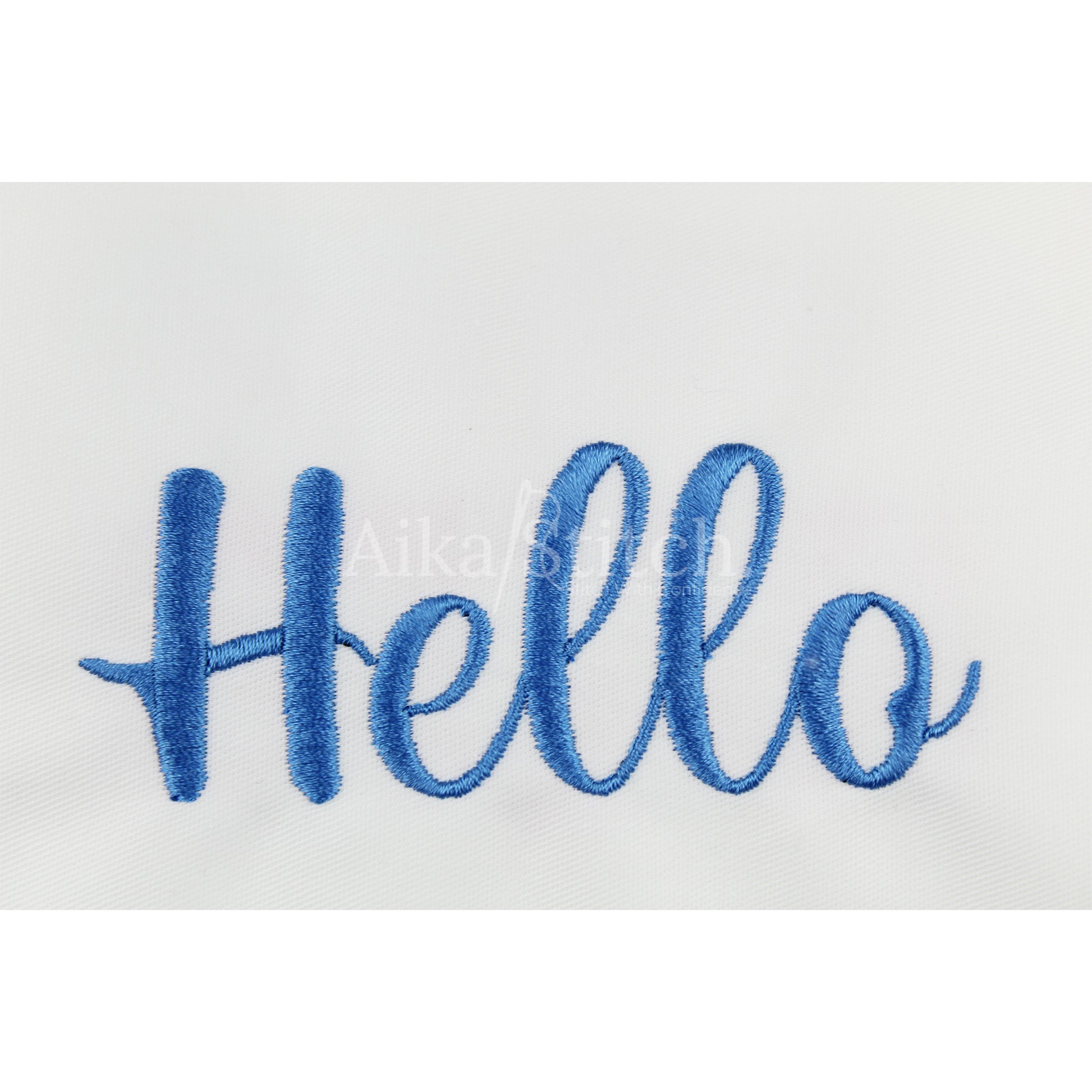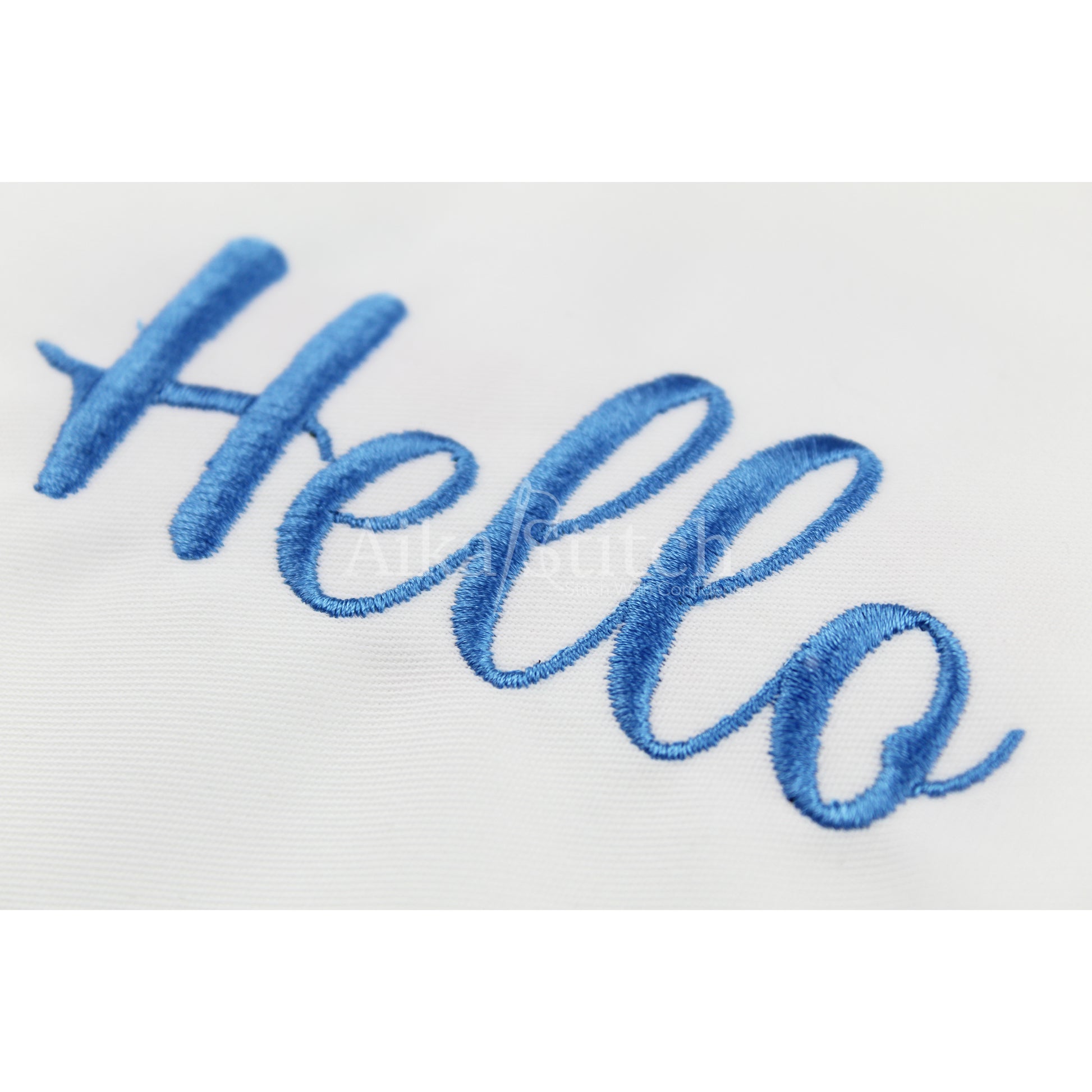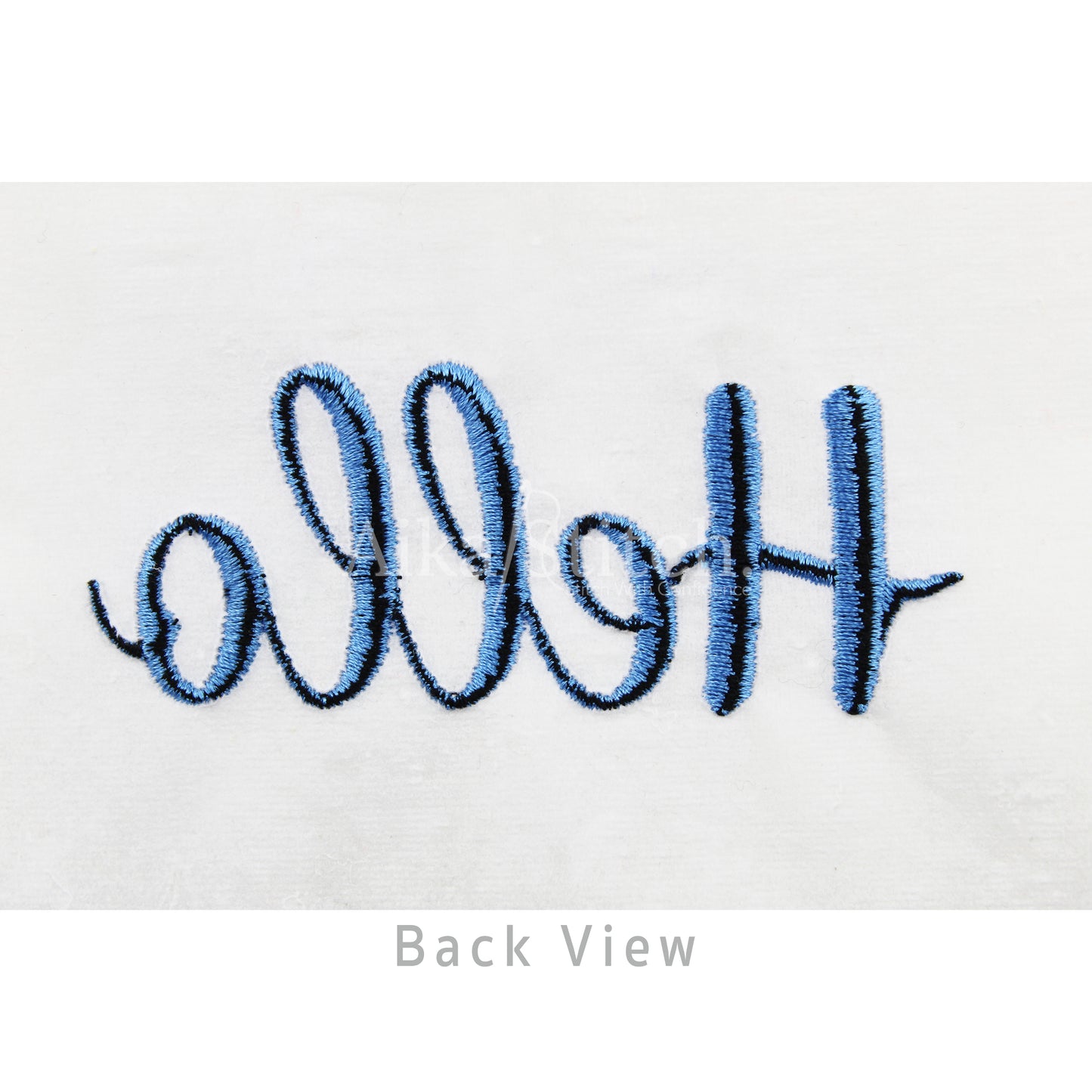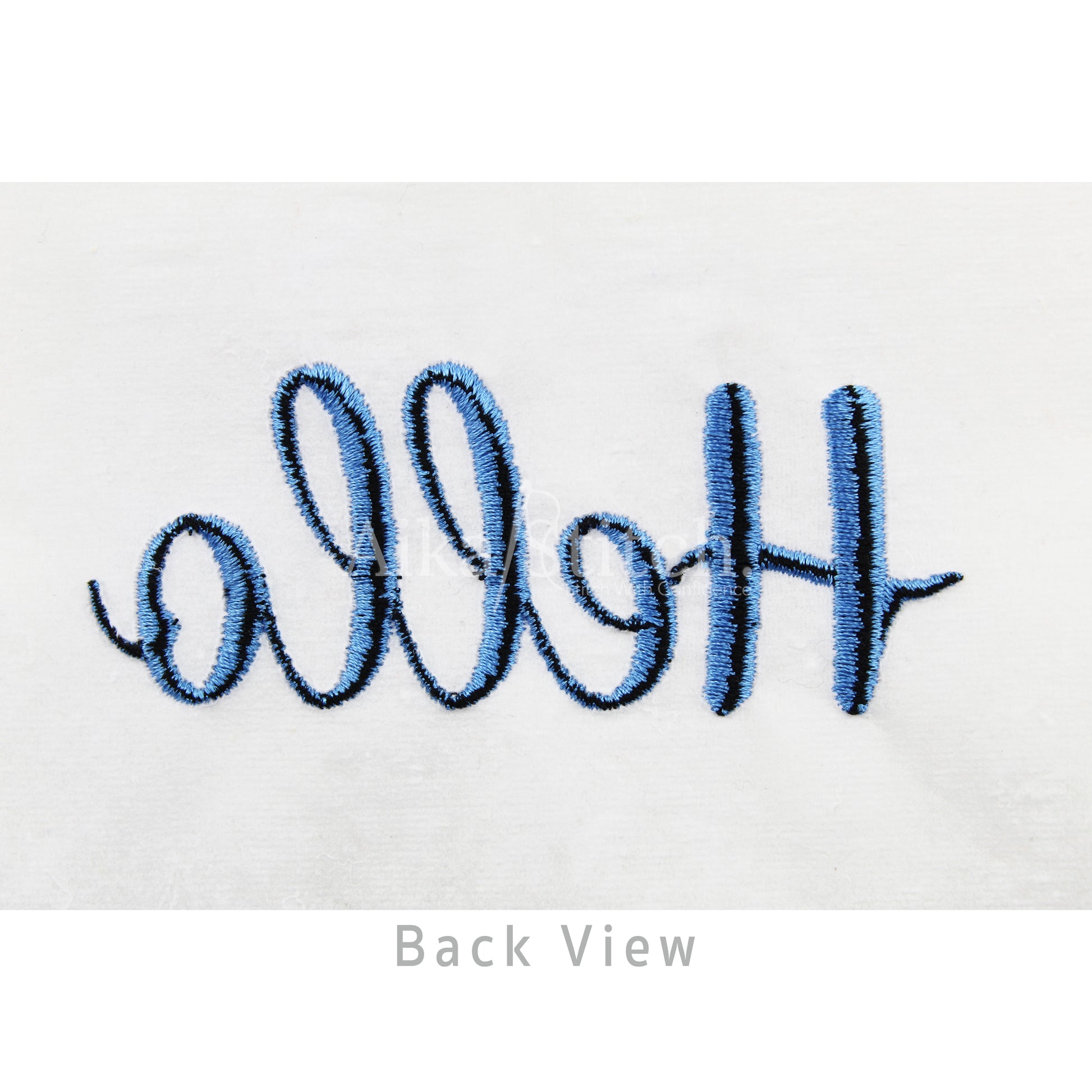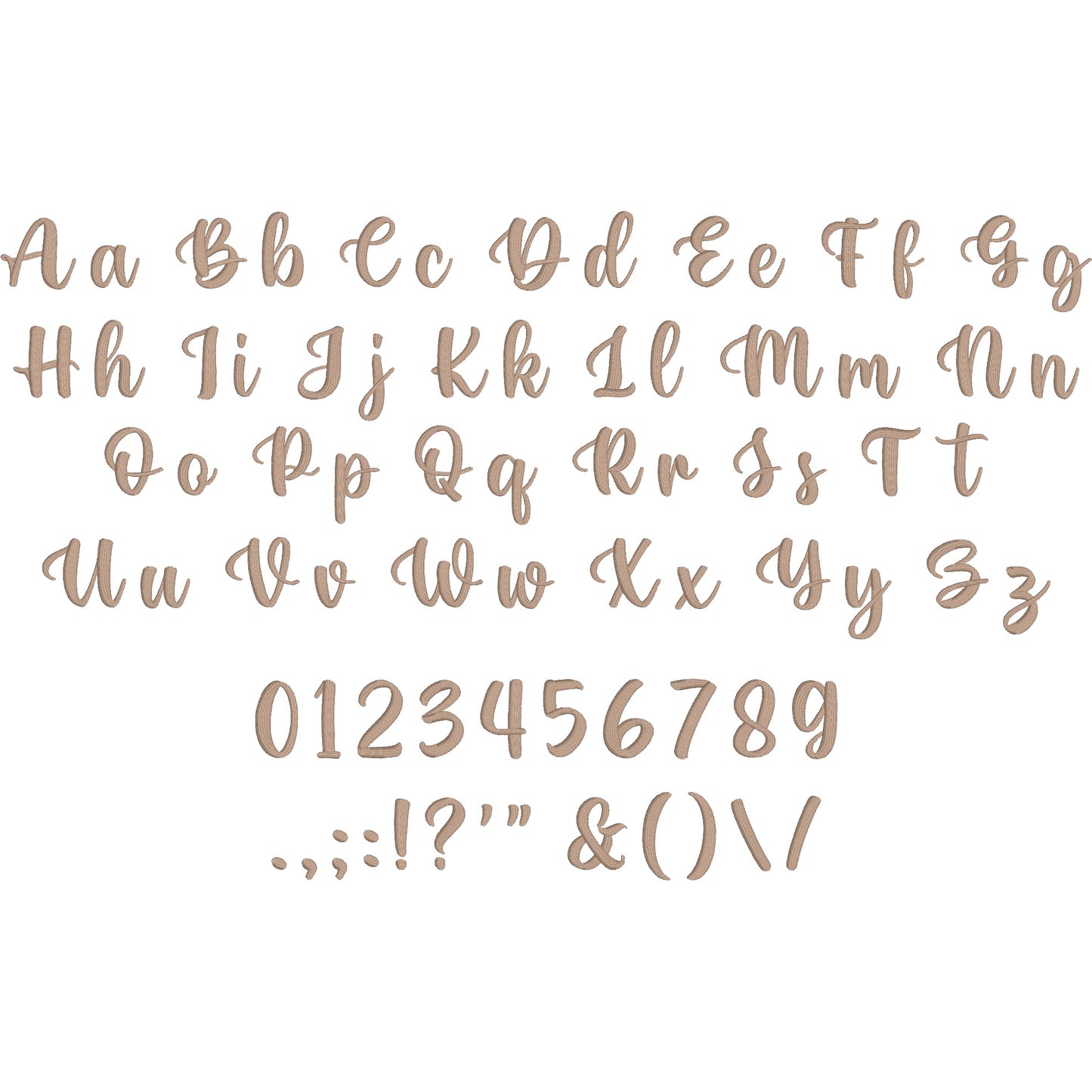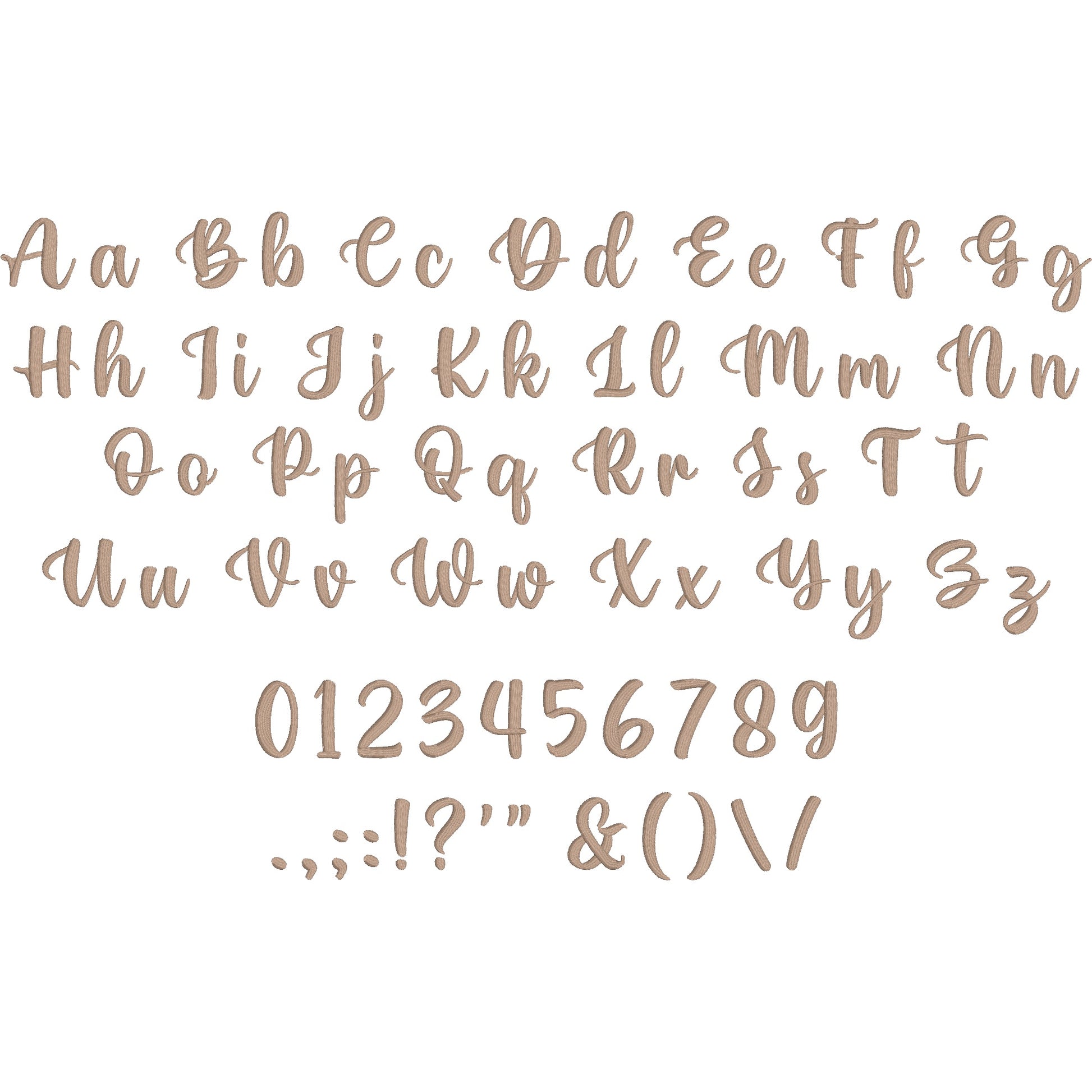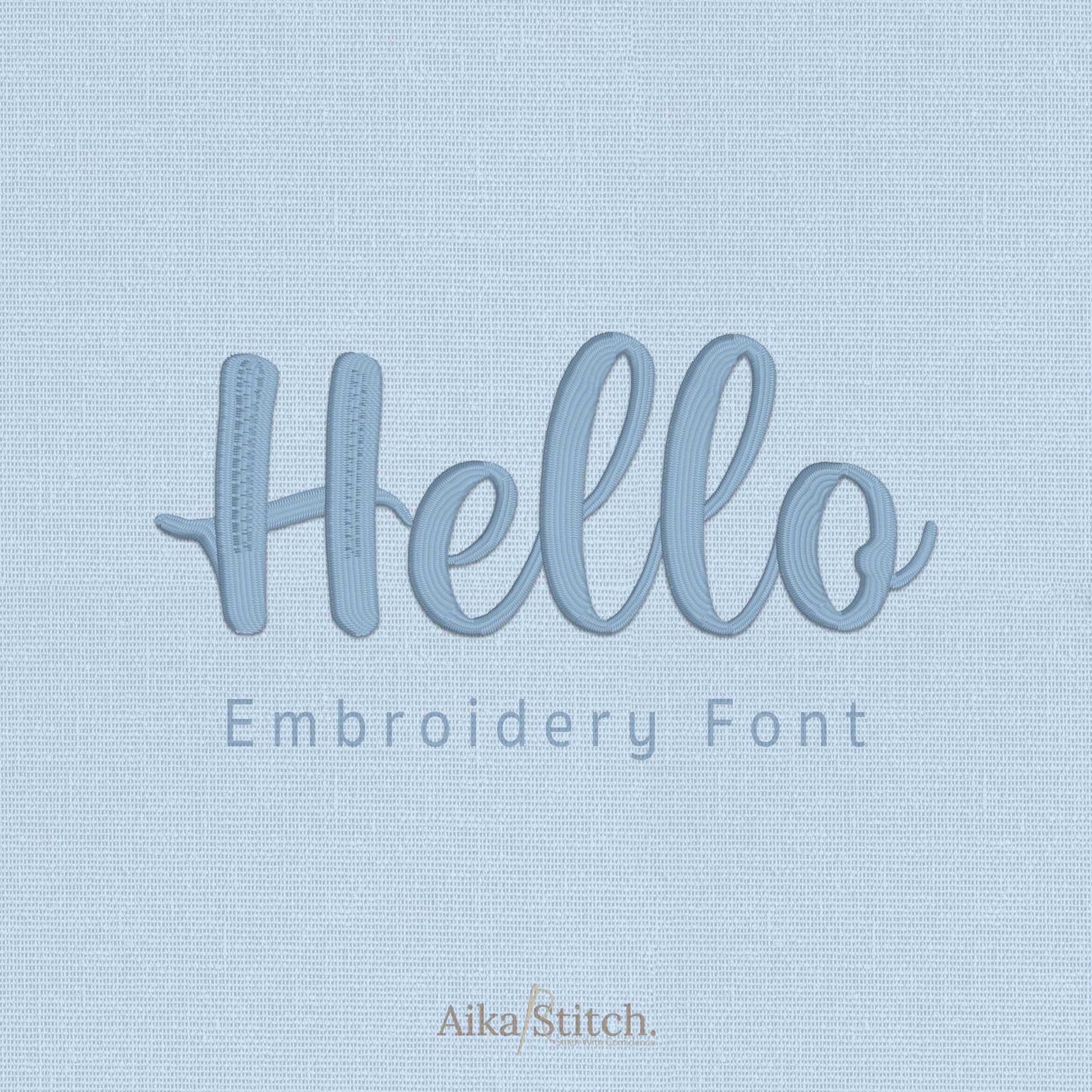
Hello Script Elegant Calligraphy Embroidery Font
Hello is a Script Elegant Calligraphy machine embroidery font featuring beautiful satin stitch lettering. Perfect for shirts, towels, hats, baby gifts, monograms, and small business embroidery projects.